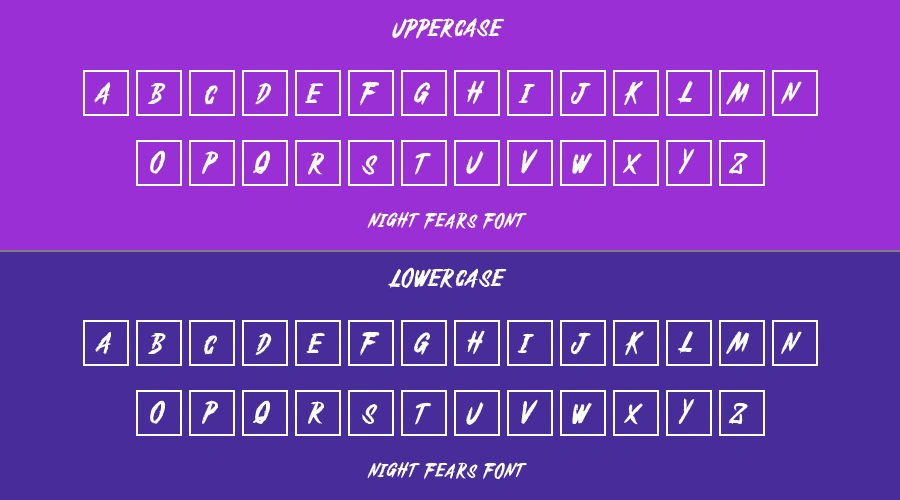
About Night Fears Font
Night Fears Font represents a sophisticated approach to type design, balancing rhythmic patterns with textual warmth. Perfect for poster titles, this font family showcases impressive impact and cultural relevance throughout its character set. Designers appreciate its versatility and reliability.
Designers will appreciate nuanced touches including unique personality and mid-word alternates, adding sophistication to any project. These features become apparent in section headers, where small text clarity matters most. The careful treatment of aperture size and personality ensures optimal performance.